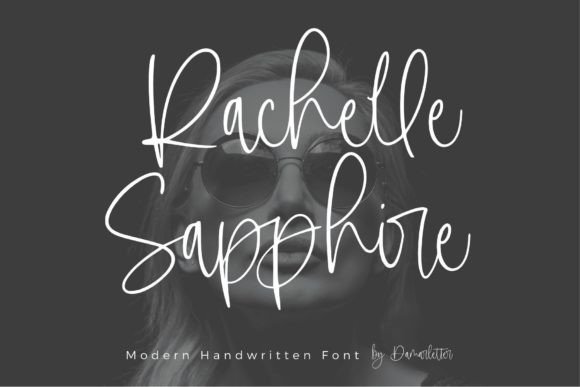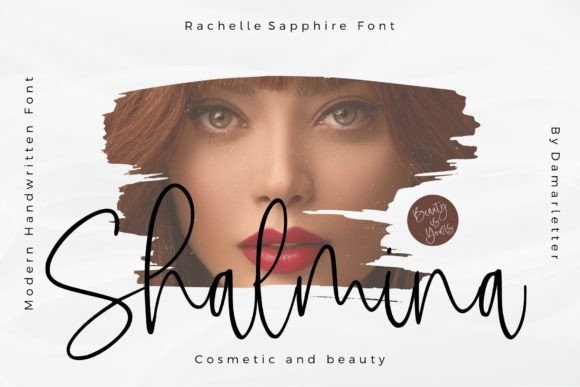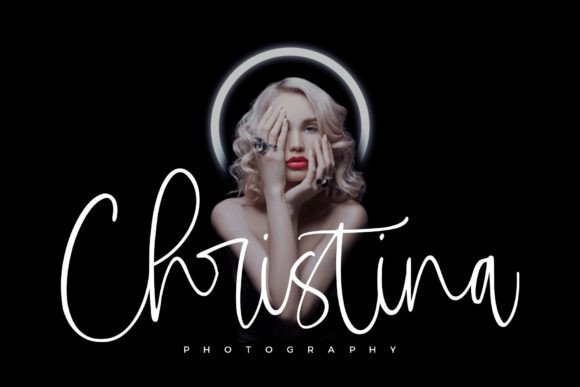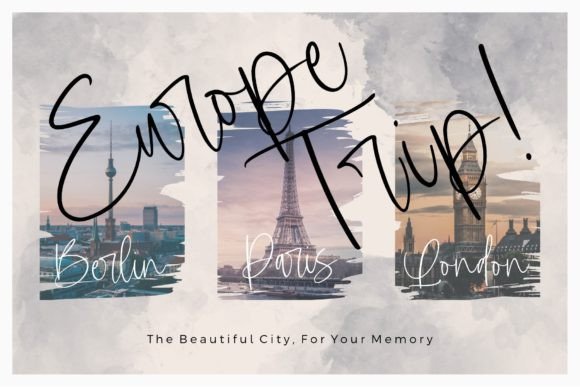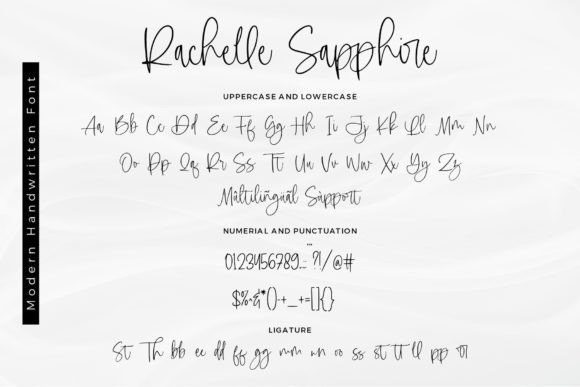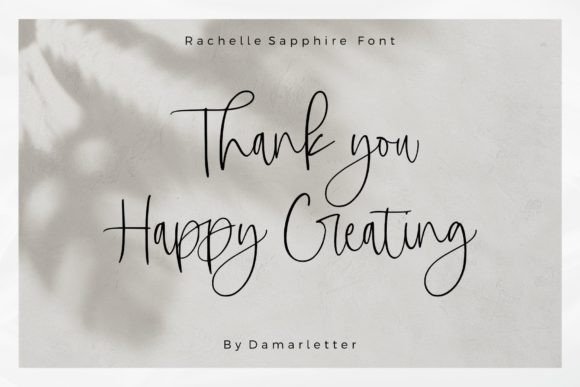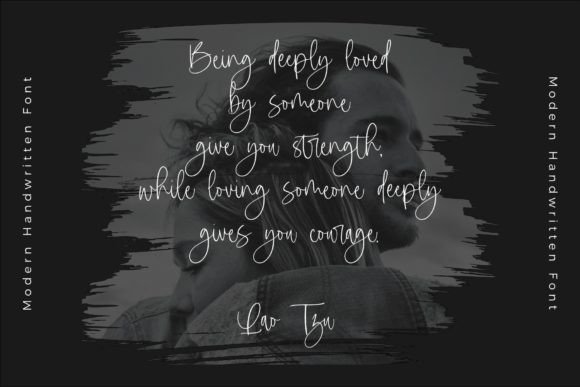
Rachelle Sapphire Font
About Rachelle Sapphire Font
Introducing Rachelle Sapphire, a font that encapsulates chic refinement and sophistication. This script font, adorned with stylish ligatures, is a perfect match for a myriad of projects, ranging from logos and wedding designs to social media posts, advertisements, product packaging, labels, invitations, and anything that craves the allure of a handwritten touch.
Rachelle Sapphire stands out not only for its chic and refined appearance but also for the thoughtfully crafted ligatures that enhance its visual appeal. Ligatures add a level of elegance and seamless flow to the script, making it a versatile choice for projects that demand a touch of sophistication.
The font’s versatility shines through in its suitability for various design applications. Whether you are creating a distinctive logo, crafting elegant wedding designs, or curating engaging social media posts, Rachelle Sapphire proves to be an excellent companion that effortlessly elevates your creative vision.
In the realm of product packaging and design, Rachelle Sapphire adds a distinctive and luxurious touch. Its PUA encoding ensures easy access to a plethora of glyphs and ligatures, allowing you to explore and experiment with different typographic elements to create truly unique and eye-catching designs.
Consider Rachelle Sapphire as more than just a font; it’s a design asset that effortlessly marries chic refinement with the charm of handwritten script. Its PUA encoding ensures accessibility to a wealth of creative possibilities, making it a valuable addition to your font library. Let Rachelle Sapphire be the stylish and refined script font that transforms your projects into visual masterpieces.